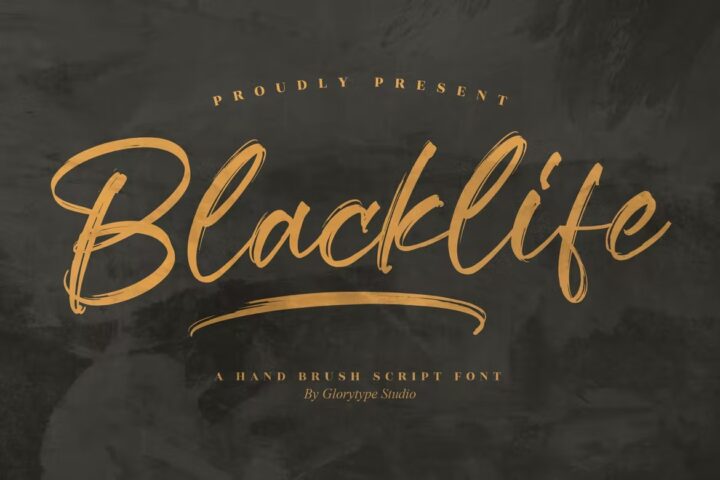
Blacklife Hand Brush Script Font
Hi ladies & gentlemen, this is one of our fonts suitable to complement your digital and printed creative products. This font is perfect for posters, social media posts, branding, personal projects, etc.